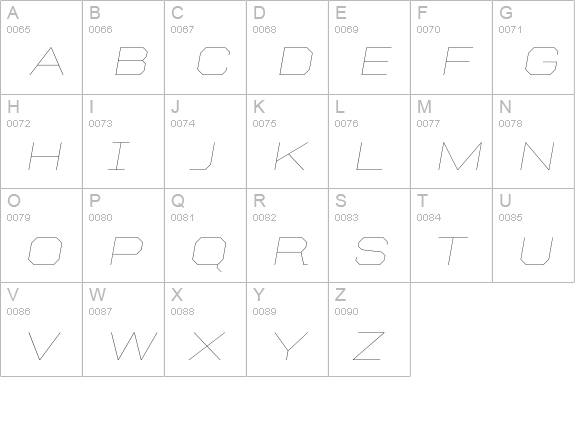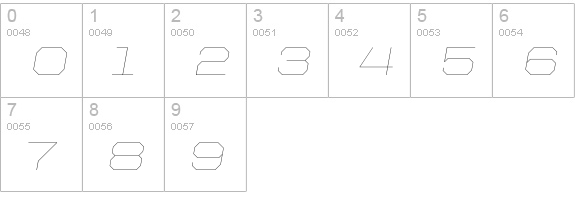
United Italic Ext Thin Font Details
United Italic Ext Thin is a delicate, low-contrast, italic variant in the United typeface family \xE2\x80\x94 well suited to fashion editorial, minimal branding, and high-contrast display.
United Italic Ext Thin font is a remarkable typeface that embodies elegance, sophistication, and modernity. Its slender and sleek design exudes a sense of class and sophistication, making it the perfect choice for projects requiring a refined touch. The thin strokes and gracefully slanted italic style add a touch of uniqueness and elegance to any design. This font is not only visually appealing but also highly versatile, making it suitable for a wide range of applications. Whether you are designing a logo, creating a brand identity, or working on a creative project, United Italic Ext Thin font will elevate your designs to new heights. One of the most exceptional aspects of this font is that it is available for free download at FontsMarket.com. This means that you can access this exquisite typeface without any cost, adding incredible value to your design endeavors. With just a few clicks, you can enhance your creative work with the beauty and finesse of United Italic Ext Thin font. The clarity and legibility of this font make it highly readable, even at small sizes. The precise details and carefully crafted letterforms ensure that every character is visually appealing and harmoniously balanced. The smooth curves and clean lines create a visually pleasing rhythm that adds a touch of sophistication to any design. United Italic Ext Thin font is a perfect choice for any project that requires a delicate and refined typography style. Its timeless elegance and modern flair make it suitable for a wide range of design applications, including editorial layouts, product packaging, advertising materials, and much more. In conclusion, United Italic Ext Thin font is a captivating typeface that effortlessly combines elegance and modernity. Its slender design and sophisticated style make it an excellent choice for designers seeking a refined and refined typography. With its availability as a free download at FontsMarket.com, United Italic Ext Thin font offers an incredible opportunity to enhance your designs with its exquisite beauty and finesse.